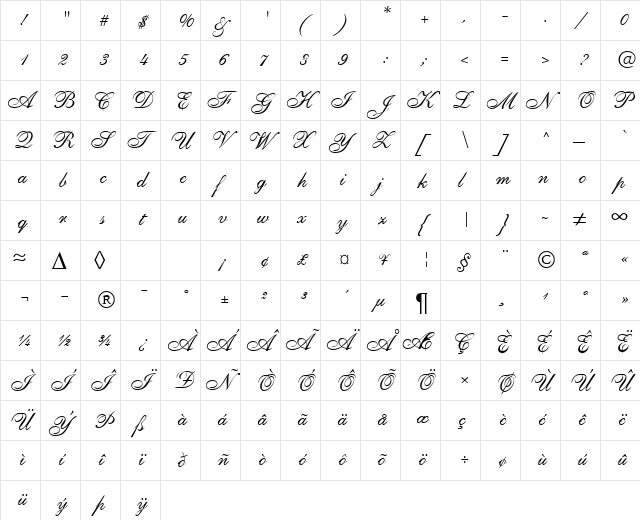
ShirleyAllegro DB Regular
Design Context for ShirleyAllegro DB Typeface
ShirleyAllegro DB is a composed and adaptable typeface that performs quietly and consistently across a wide range of design contexts.